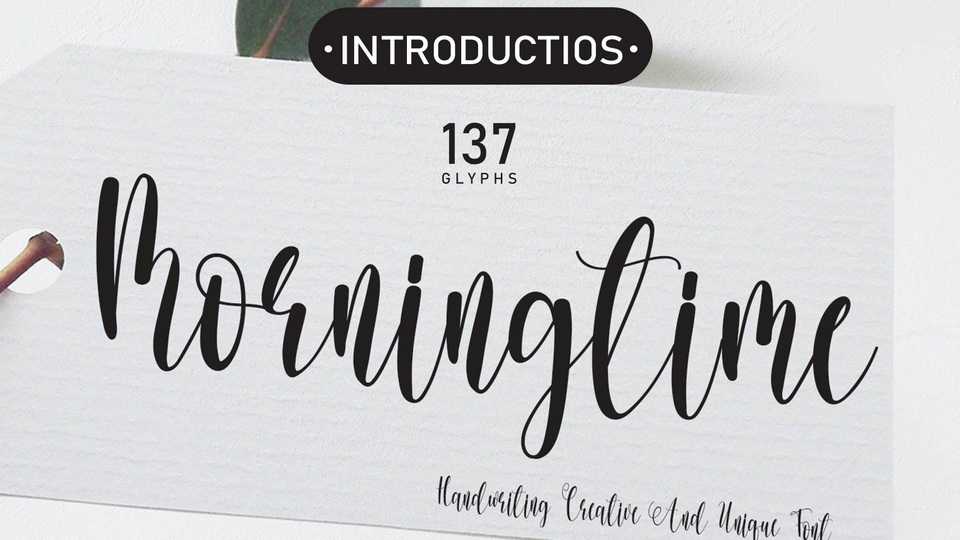
Download Morningtime font, a creative handwritten font with a made of beautiful irregular strokes. Morningtime font is perfect for wall displays, wedding invitations, social media post logos, advertisements, product packaging, labels, photography, watermarks, invitations, stationery, and any project that requires taste handwriting.